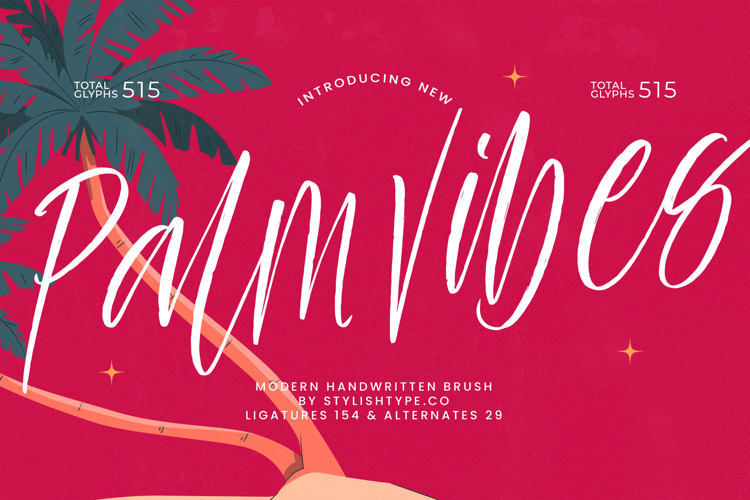
Palm Vibes - Modern Handwritten Font
Unleash the vibrant energy of bespoke design with Palm Vibes - Modern Handwritten Font. This exquisite brush script embodies a free-spirited yet refined aesthetic, expertly crafted to bring an authentic, organic touch to any project. Its fluid strokes and natural rhythm create an instantly captivating and memorable visual presence. Experience the dynamic interplay of modern style and raw artistic expression that elevates your message.
Elevate your creative projects with unparalleled flexibility and artistic depth. Palm Vibes - Modern Handwritten Font is a comprehensive toolkit for expression, featuring an impressive collection of 154 ligatures and 29 alternates. These extensive stylistic options empower designers to craft truly unique and bespoke typography, ensuring every design possesses a distinctive, personalized touch that radiates sophistication and originality, setting your work apart.